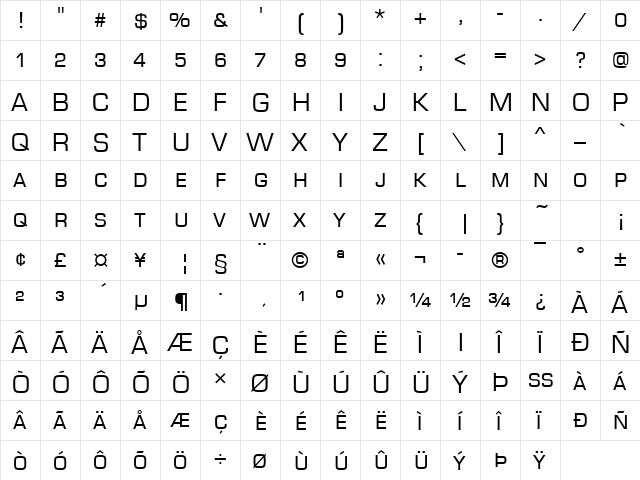
Eurostile Becker Discaps Regular Font Preview
Eurostile Becker Discaps Regular
Design Context for Eurostile Becker Discaps Typeface
Eurostile Becker Discaps offers clean, dependable letterforms without strong stylistic allegiance, making it a practical choice for designers who need flexibility.
Pro Tip: Use Eurostile Becker Discaps in both headline and body roles to test its range before committing to a single application.